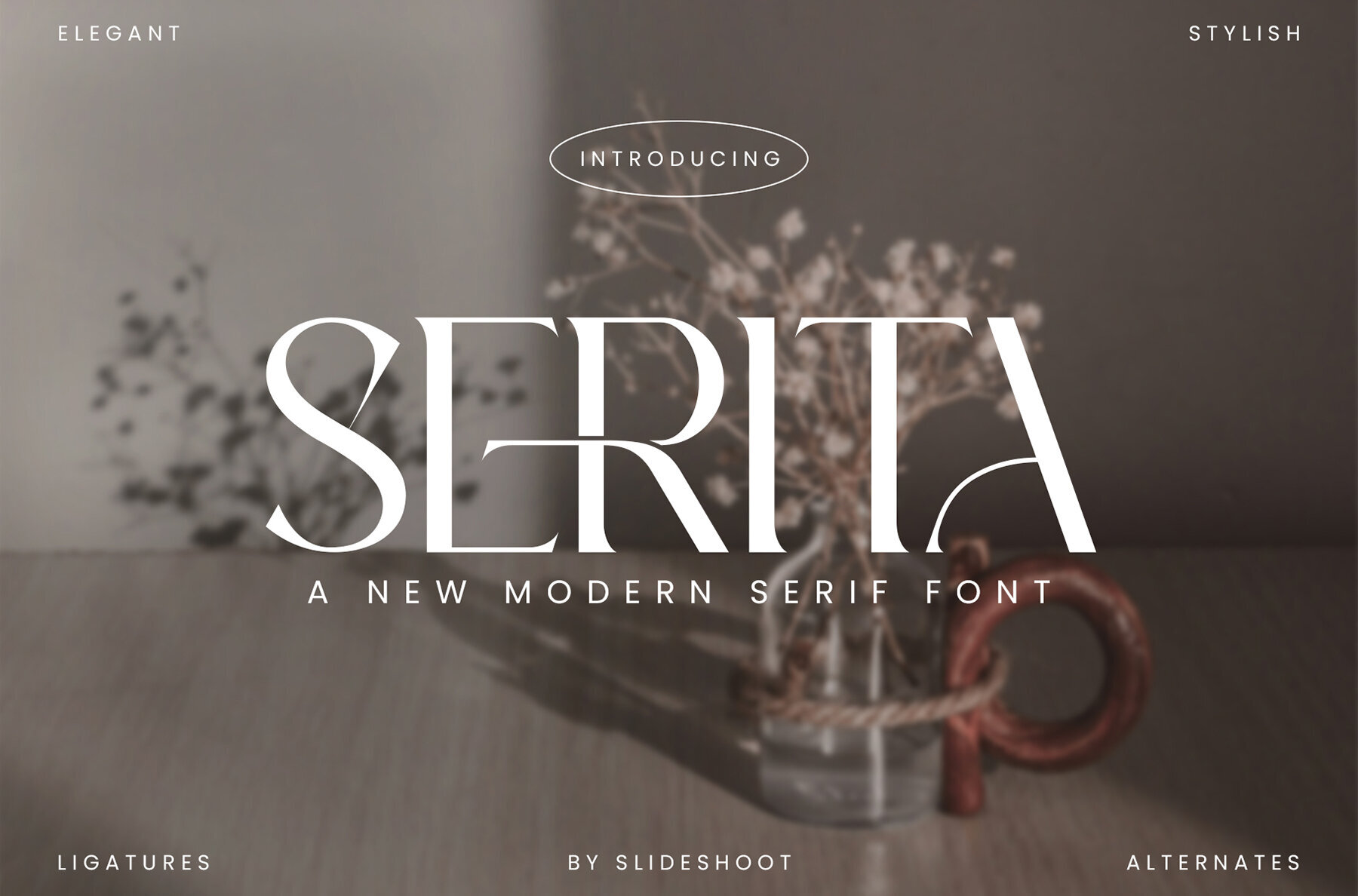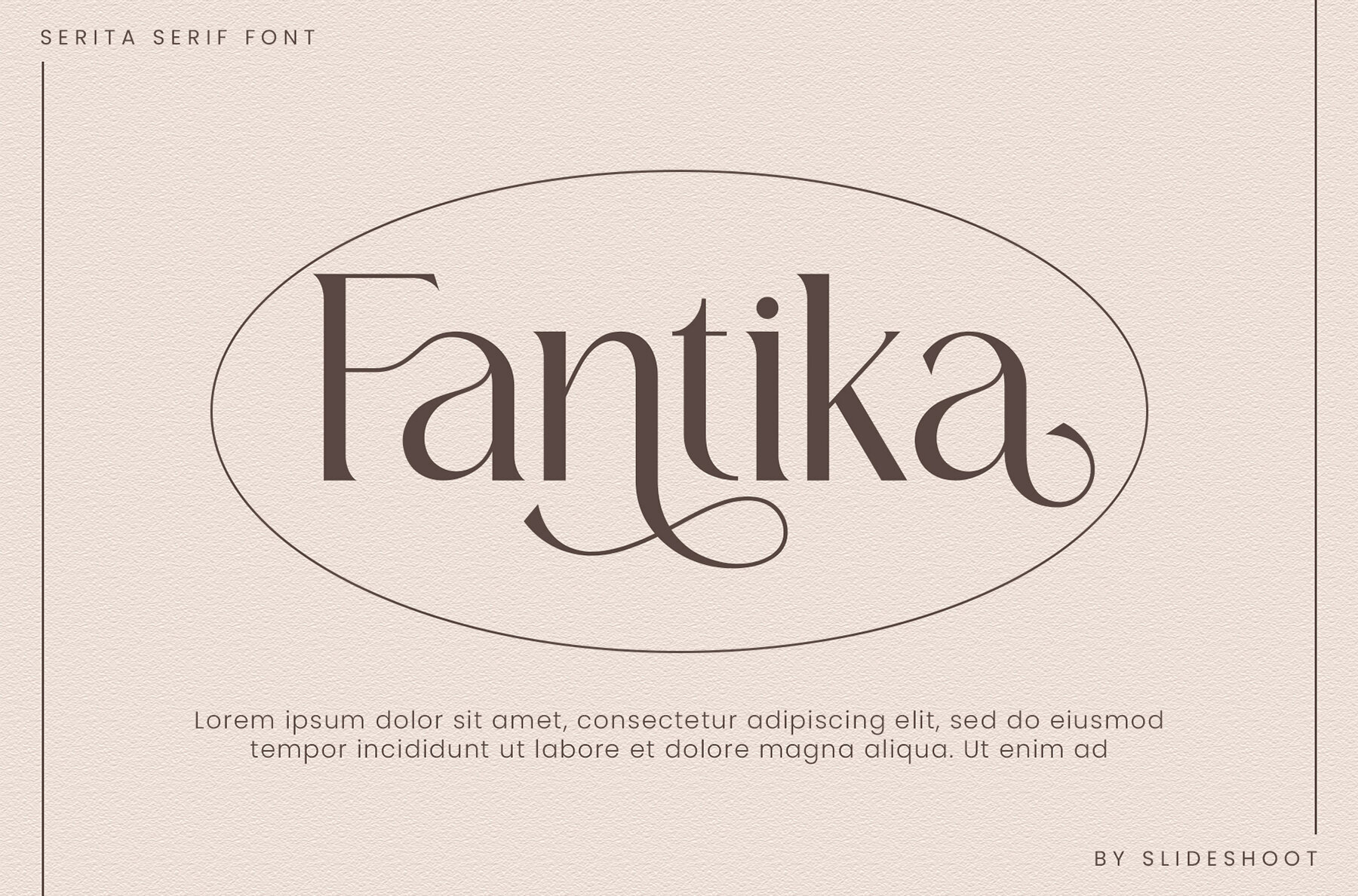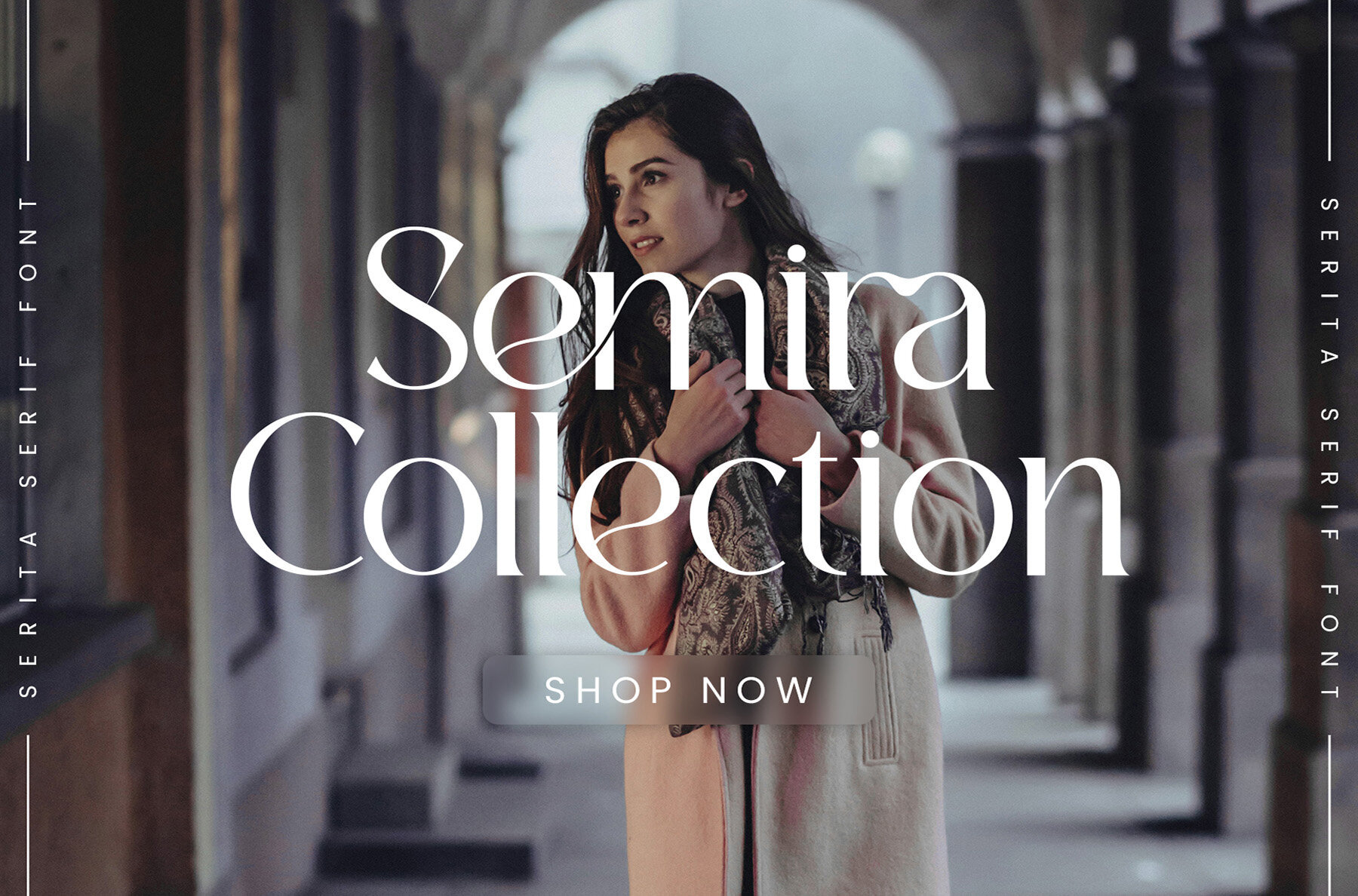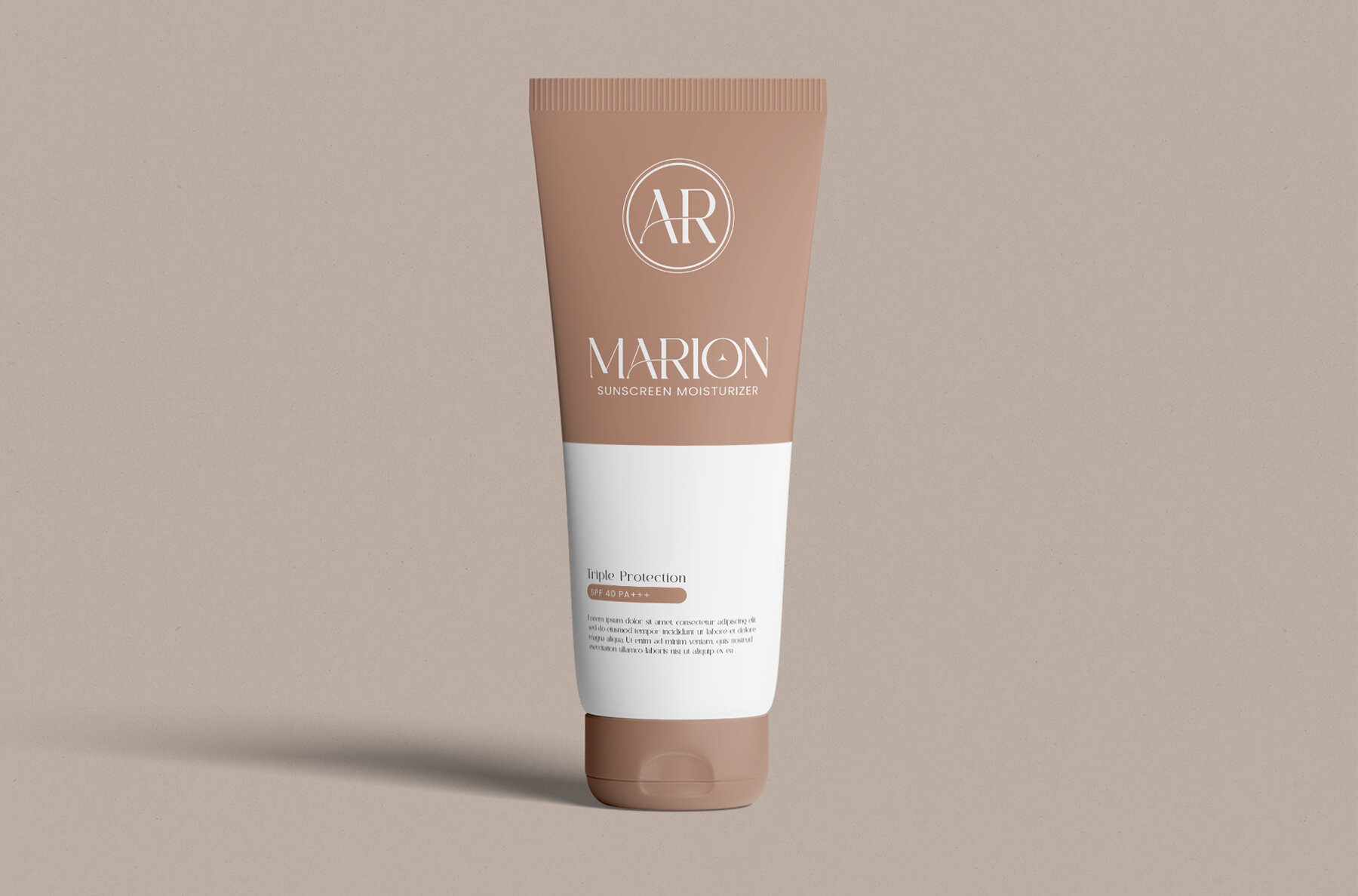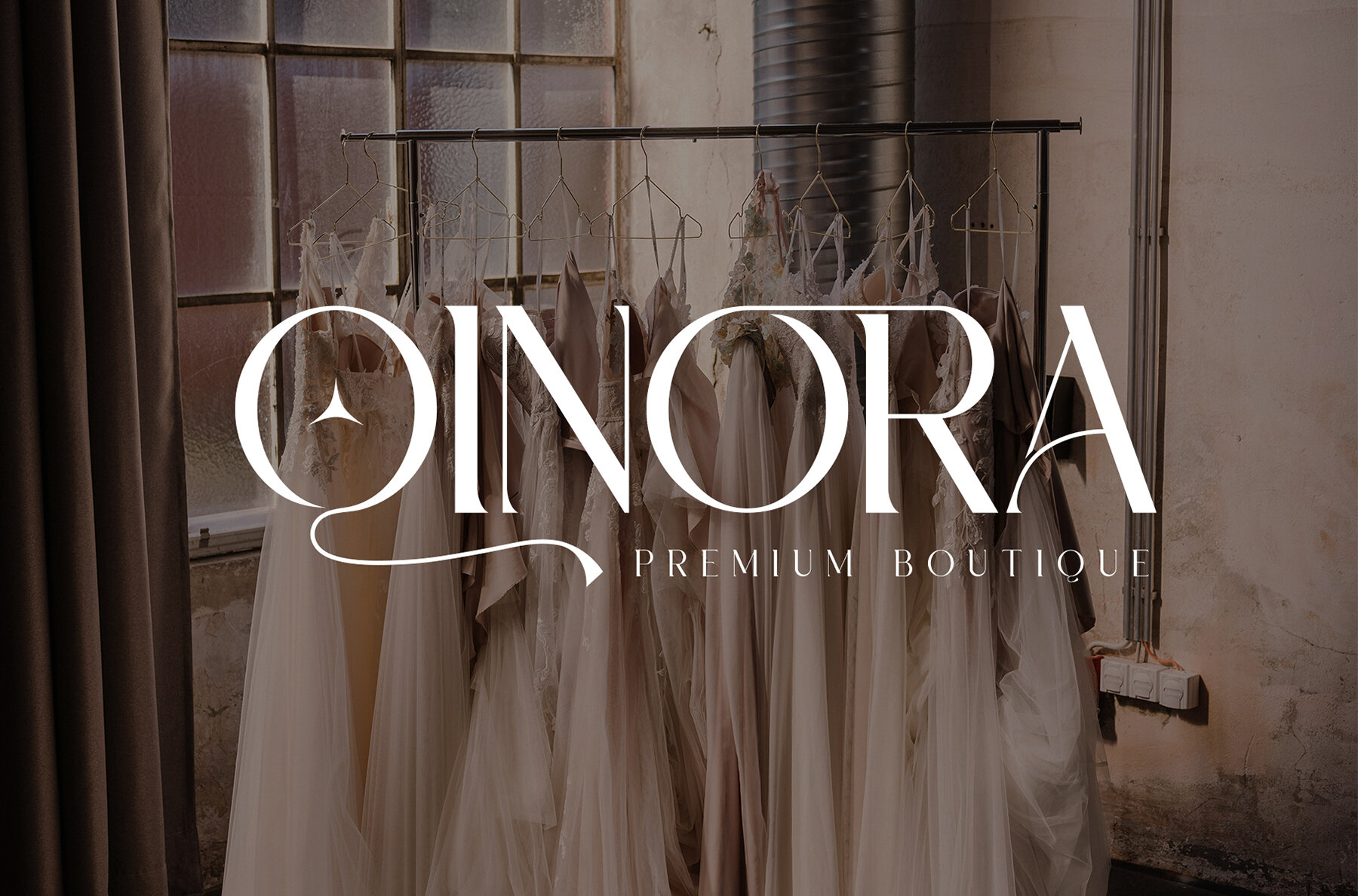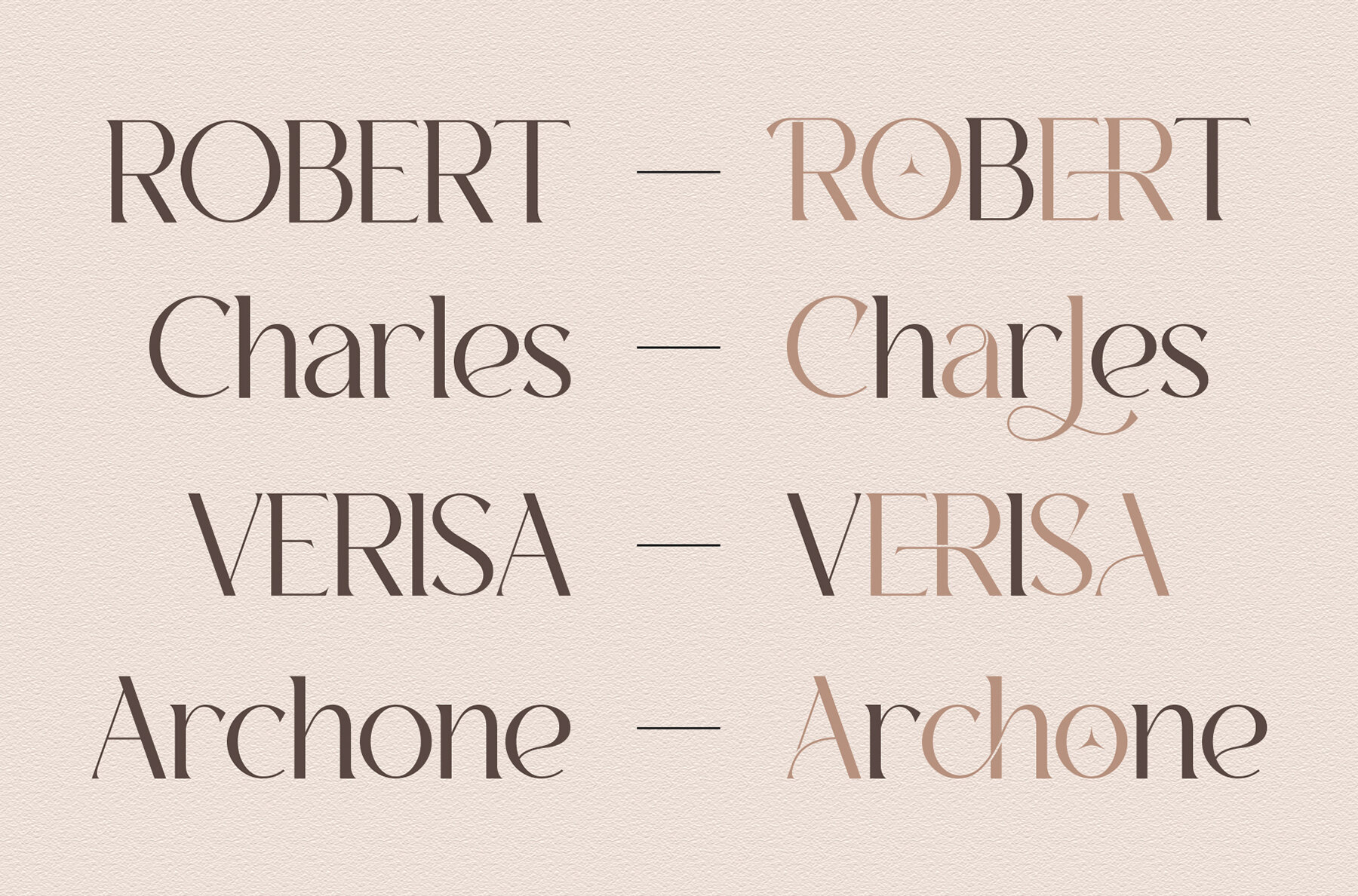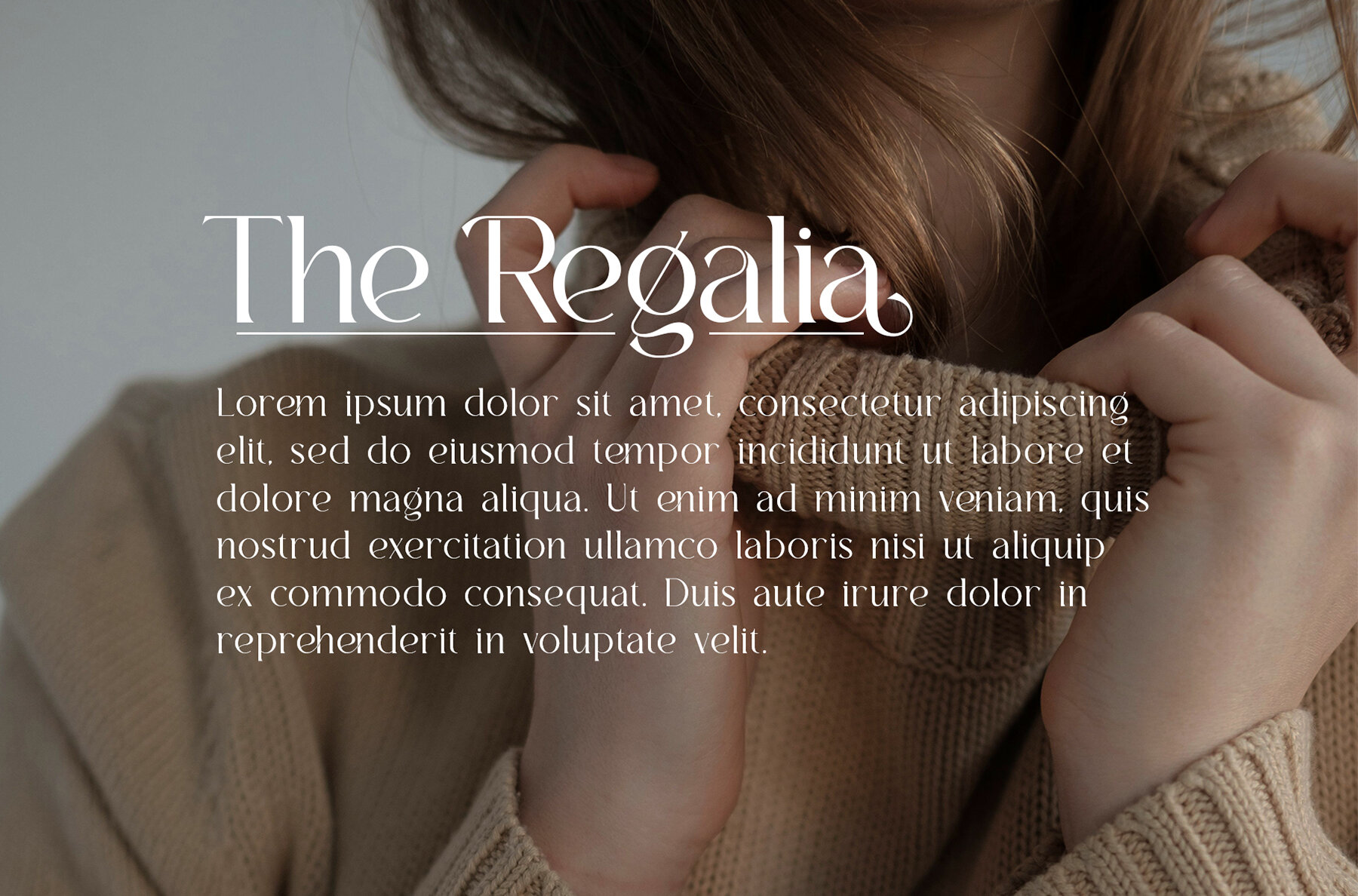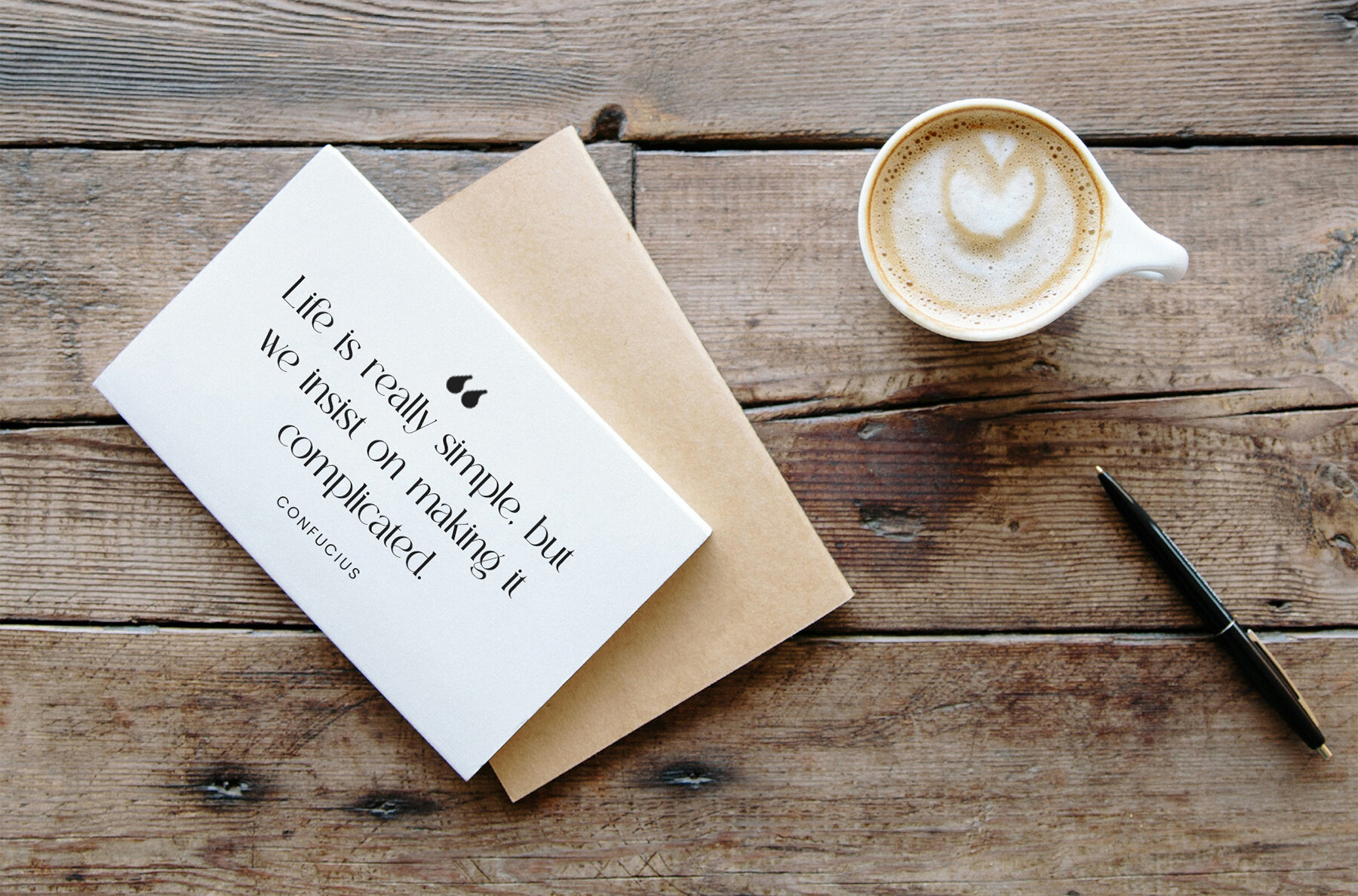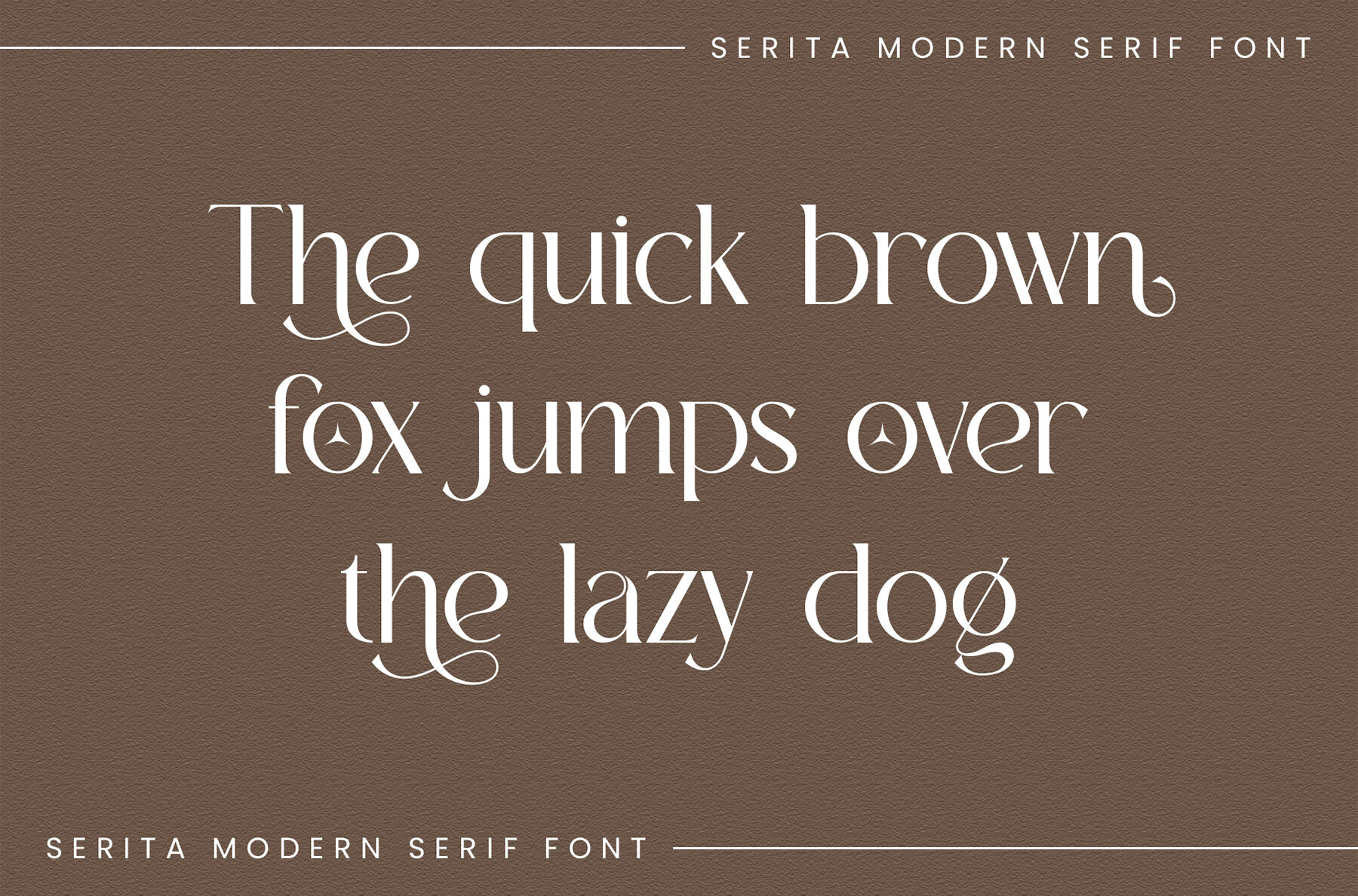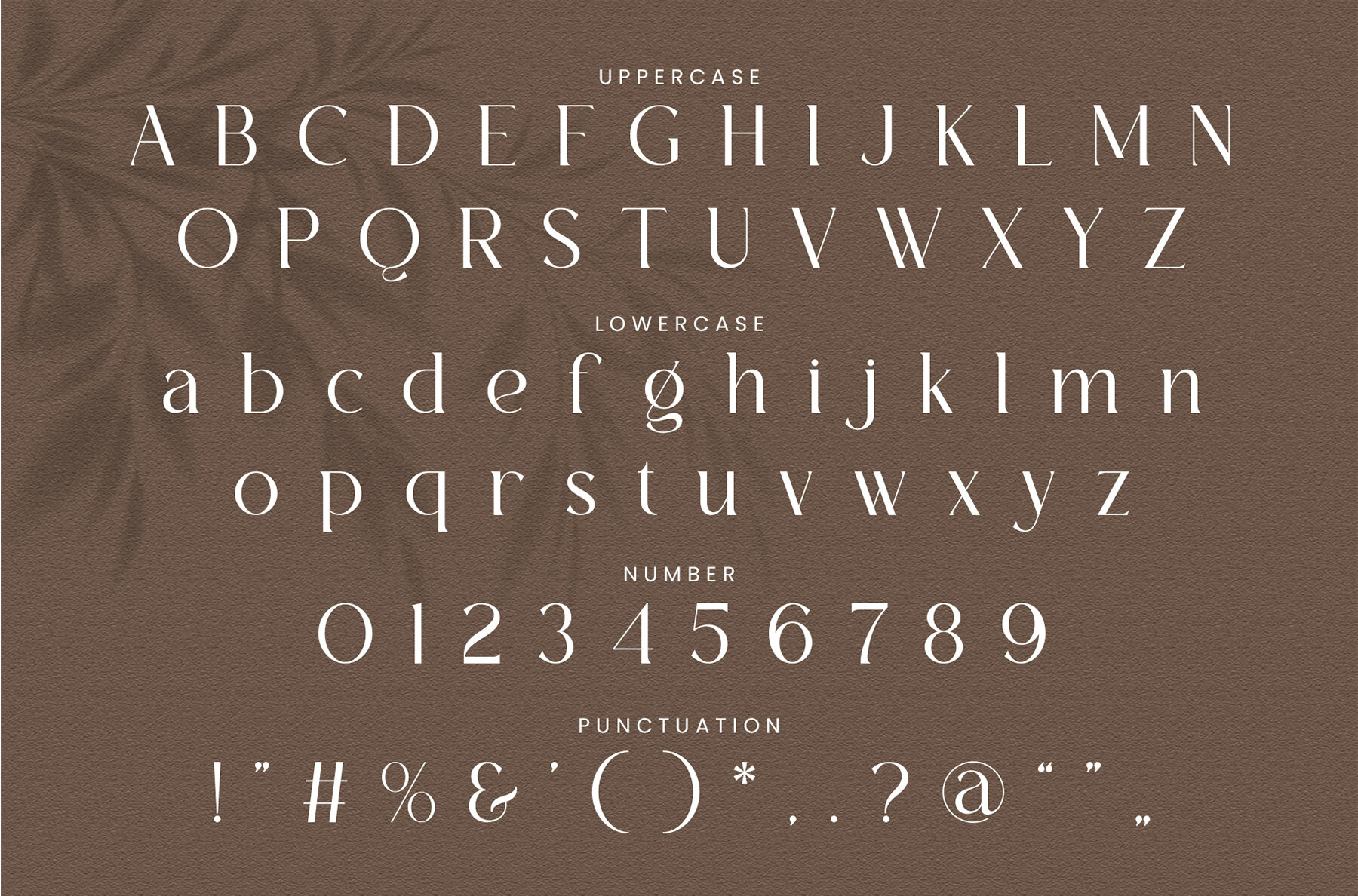
Serita Font
Serita Regular
Serita Serif is a balanced, smooth, and stylish serif font known for its elegance and sophistication. With its beautiful character, it perfectly complements invitation card designs, company logos, movie titles, business cards, book titles, brand names, and various other design projects. Serita's unique alternations and ligatures add a touch of refined style to every piece, making it the ideal choice for those seeking to infuse their work with classic charm.
This versatile serif font comes with a complete set of features, including ligatures, uppercase and lowercase letters, and comprehensive numbering and punctuation. Designed for compatibility, Serita works seamlessly on both PC and Mac. It's also easy to install and fully supports popular design software such as Adobe Illustrator, Photoshop, InDesign, and even Microsoft Word. Enhance your design repertoire with the sophistication of Serita Serif.